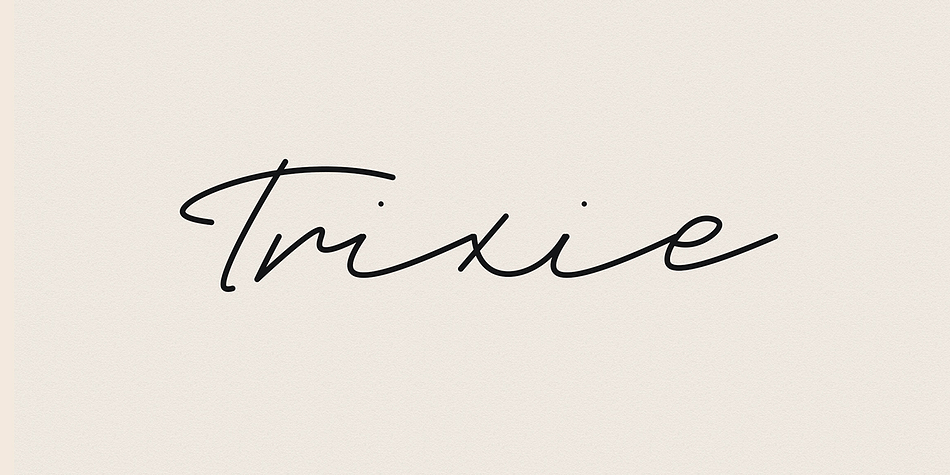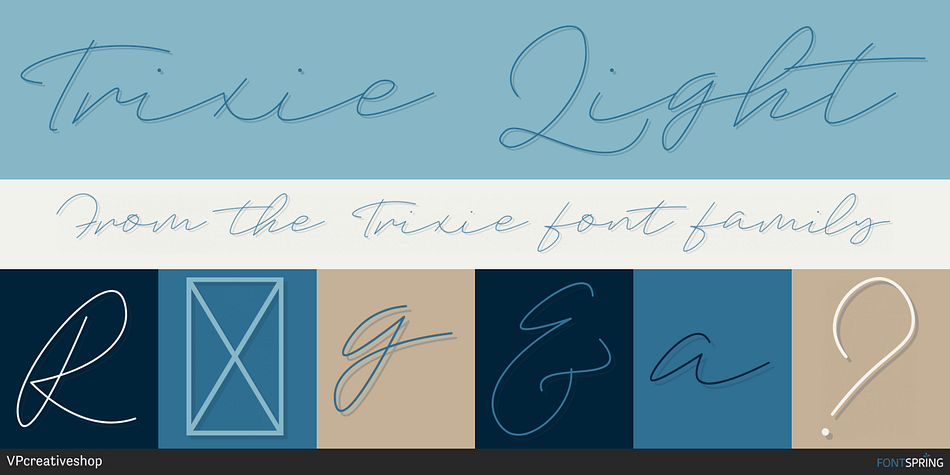
Trixie Light
Trixie is a script font family. This typeface has three styles and was published by VPcreativeshop.
Introducing Trixie Script
Trixie is signature, clean typeface with 3 weights and multilingual support.
It’s a very versatile font that works great in large and small sizes.
Trixie is perfect for branding projects, home-ware designs, product packaging, magazine headers - or simply as a stylish text overlay to any background image.
Uppercase,lowercase,numeral,punctuation & Symbol
Multilingual
Light
Regular
Bold
Alternatives
Ligatures
Natural feel